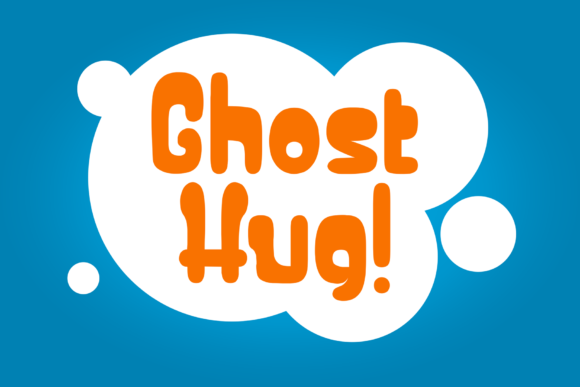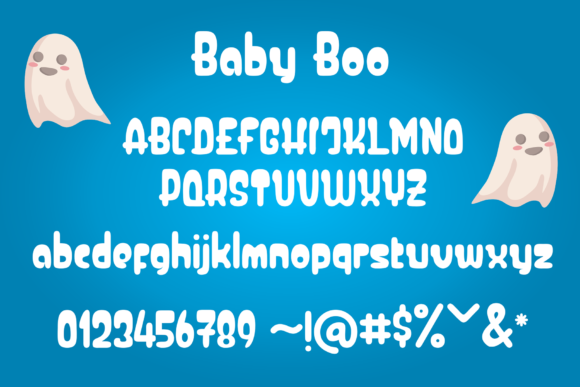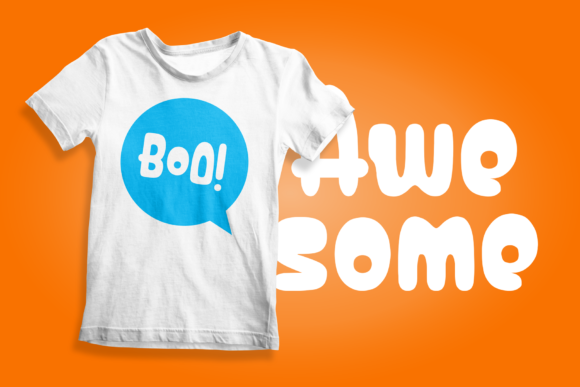
Baby Boo Font: The Sweetest Halloween Display Font for Your Design Projects
Are you looking for a font that will add a touch of whimsy and cuteness to your Halloween-themed design projects? Look no further than the Baby Boo Font! This perfectly sweet Halloween display font is sure to delight designers and crafters alike with its playful and charming vibe.
What is Baby Boo Font?
Baby Boo Font is a display font specifically designed for Halloween-themed projects. Its unique and quirky design makes it perfect for adding a touch of personality to your designs. Whether you’re creating invitations, posters, or social media graphics, Baby Boo Font is sure to make your project stand out.
Key Features of Baby Boo Font
- Whimsical and Cute: Baby Boo Font has a playful and charming vibe that’s perfect for Halloween-themed projects.
- Display Font: This font is designed to make a statement and is perfect for headings, titles, and other display text.
- Easy to Read: Despite its playful design, Baby Boo Font is easy to read and understand, making it perfect for use in a variety of design projects.
- Versatile: Baby Boo Font can be used in a variety of design projects, from invitations and posters to social media graphics and more.
Why Use Baby Boo Font?
There are many reasons why Baby Boo Font is a great choice for your Halloween-themed design projects. Here are just a few:
- Adds a Touch of Whimsy: Baby Boo Font adds a playful and whimsical touch to your designs, making them more engaging and fun.
- Perfect for Halloween-themed Projects: This font is specifically designed for Halloween-themed projects, making it a great choice for designers and crafters who want to create spooky and fun designs.
- High-Quality Design: Baby Boo Font has a high-quality design that’s sure to impress. Its unique and quirky design makes it perfect for adding a touch of personality to your designs.
Design Ideas Using Baby Boo Font
Baby Boo Font is a versatile font that can be used in a variety of design projects. Here are some design ideas to get you started:
- Halloween Invitations: Use Baby Boo Font to create spooky and fun Halloween invitations.
- Posters and Flyers: Use Baby Boo Font to create eye-catching posters and flyers for Halloween events.
- Social Media Graphics: Use Baby Boo Font to create fun and engaging social media graphics for Halloween.
- Craft Projects: Use Baby Boo Font to add a personal touch to your craft projects, such as Halloween-themed cards and gift tags.
Baby Boo Font is a perfectly sweet Halloween-themed display font that’s sure to delight designers and crafters alike. Its whimsical and cute design makes it perfect for adding a touch of personality to your Halloween-themed design projects. With its ease of use and high-quality design, Baby Boo Font is a great choice for anyone looking to add a touch of whimsy to their designs.